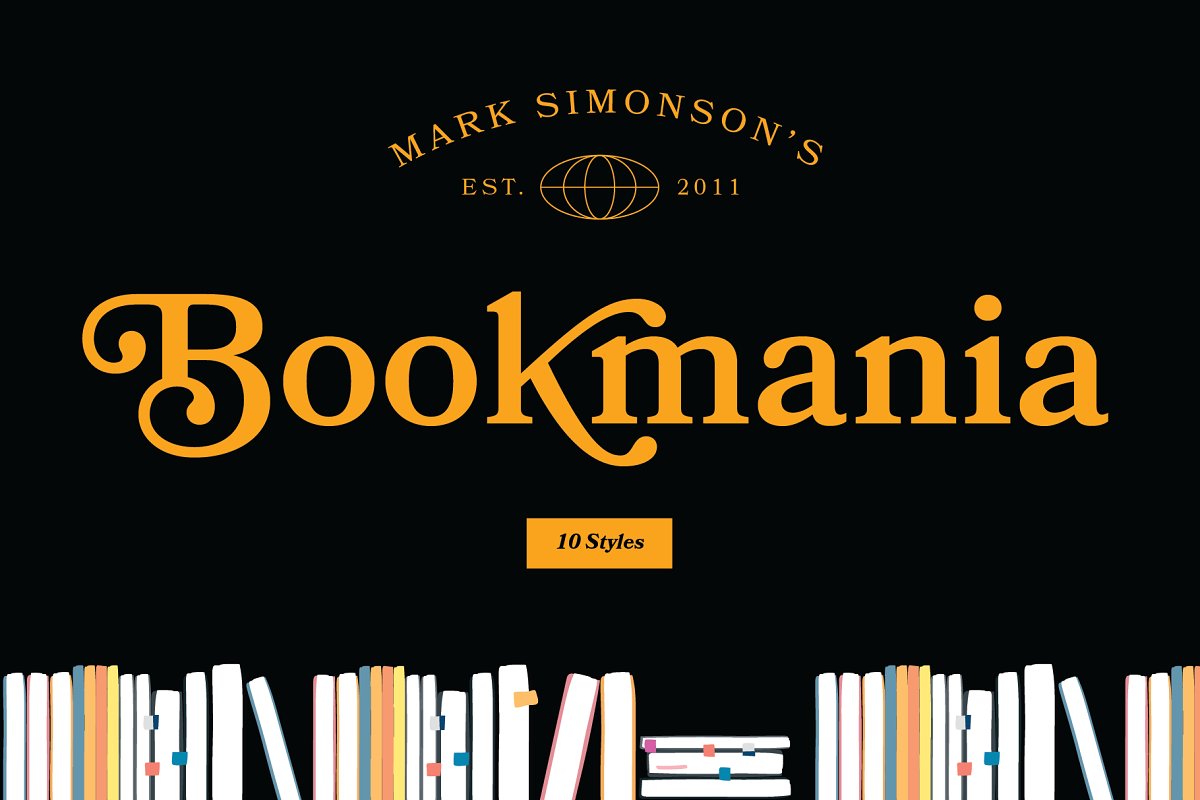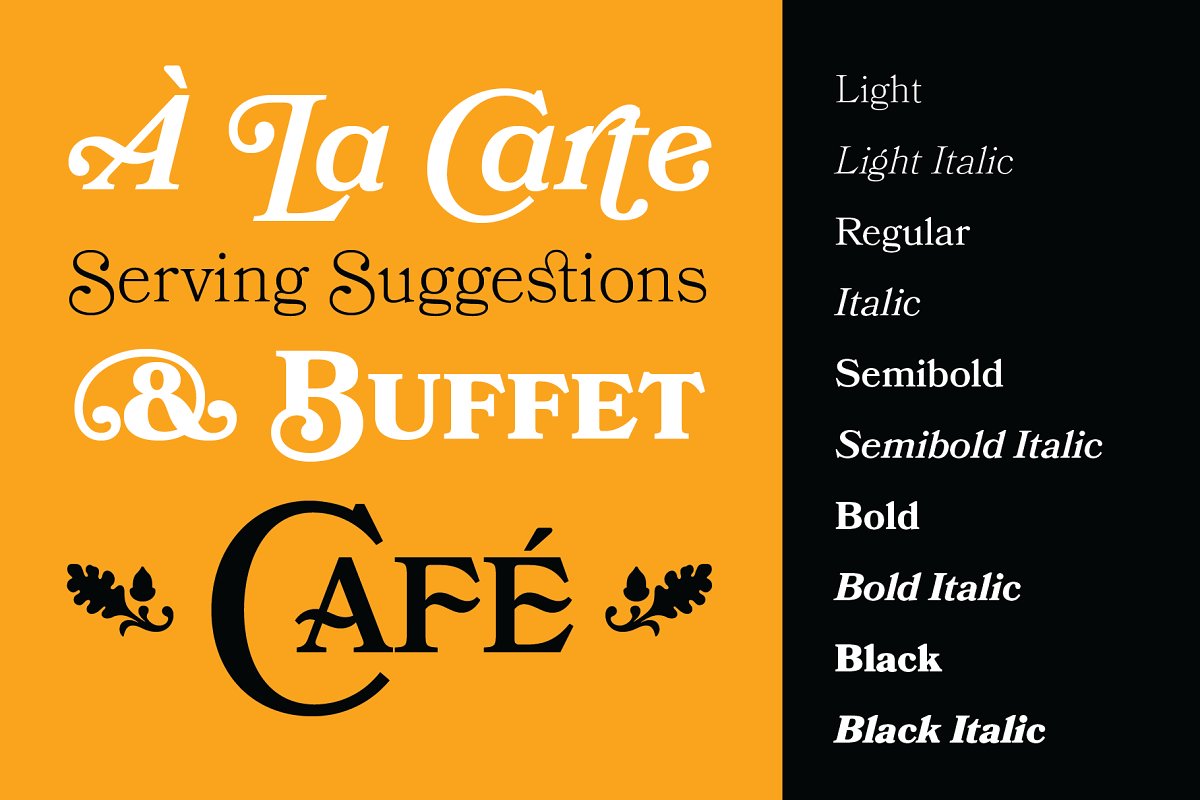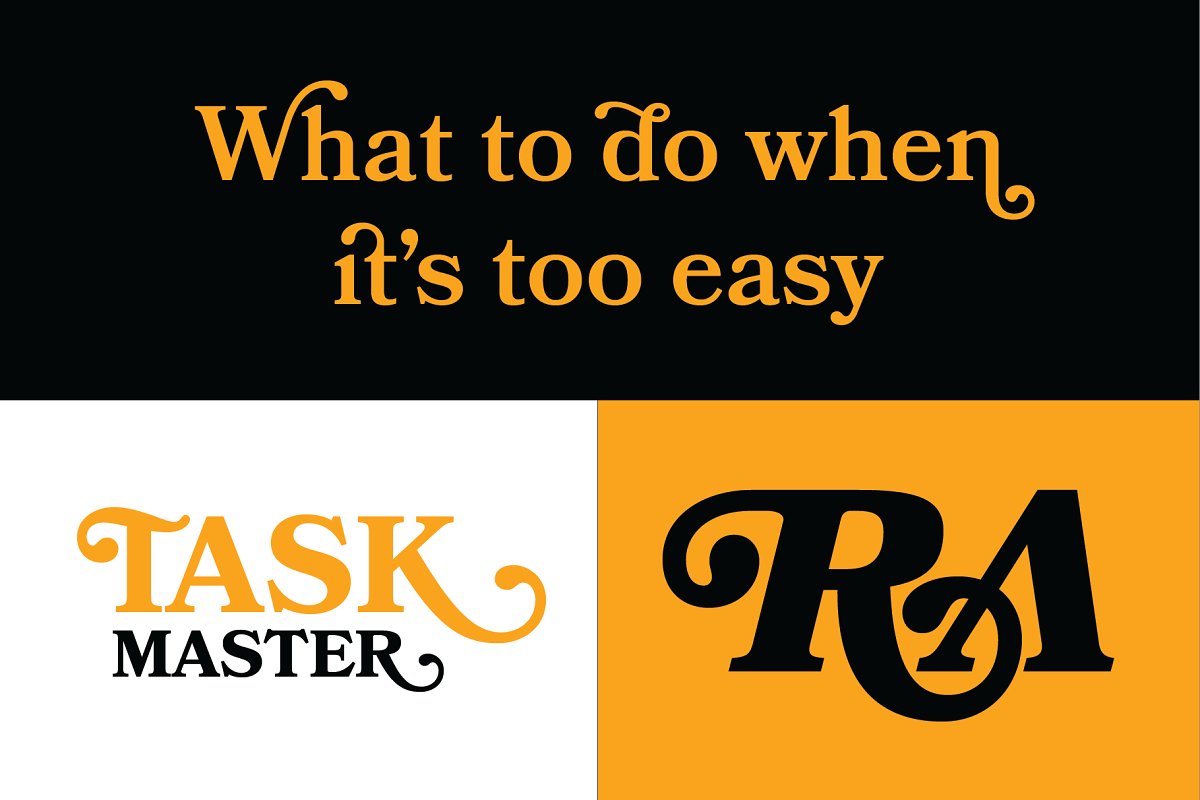
Bookmania (2011) combines the sturdy elegance of the original Bookman Oldstyle (1901) with the swashy exuberance of the Bookmans of the 1960s, With over 680 swash characters, more than any previous Bookman, the possibilities are endless, The broad range of weights make it great for display use, but it also works well for text, Unlike some Bookman revivals, it retains the original classic sloped roman for the italic